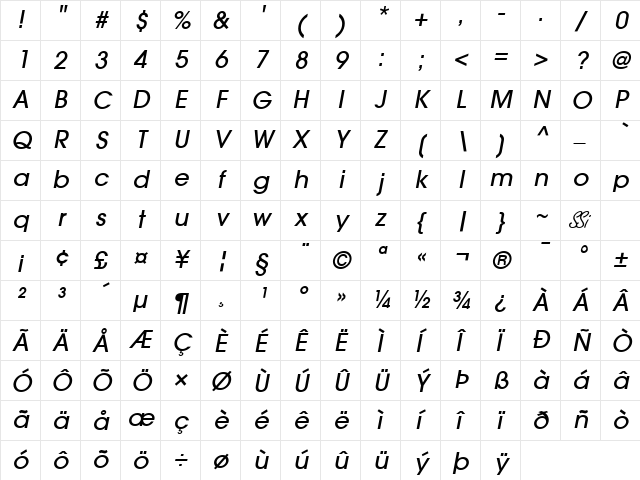
Trendex Light SSi Medium Italic
Complete Trendex Light SSi Medium Italic glyph index. Displaying only characters natively supported by Trendex Light SSi Medium Italic font.
Design Context for Trendex Light SSi
Trendex Light SSi is a composed and adaptable typeface that performs quietly and consistently across a wide range of design contexts. The slanted form adds forward momentum and visual energy. Its slender proportions lend an understated elegance to any composition.
Pro Tip: Use Trendex Light SSi for emphasis, pull quotes, and subheadings where its slanted energy can add rhythm to the layout.